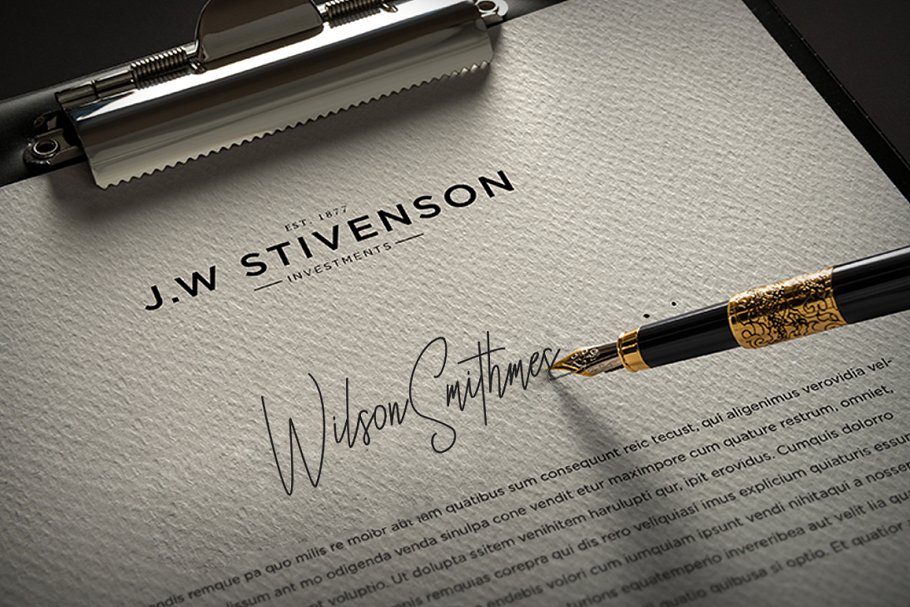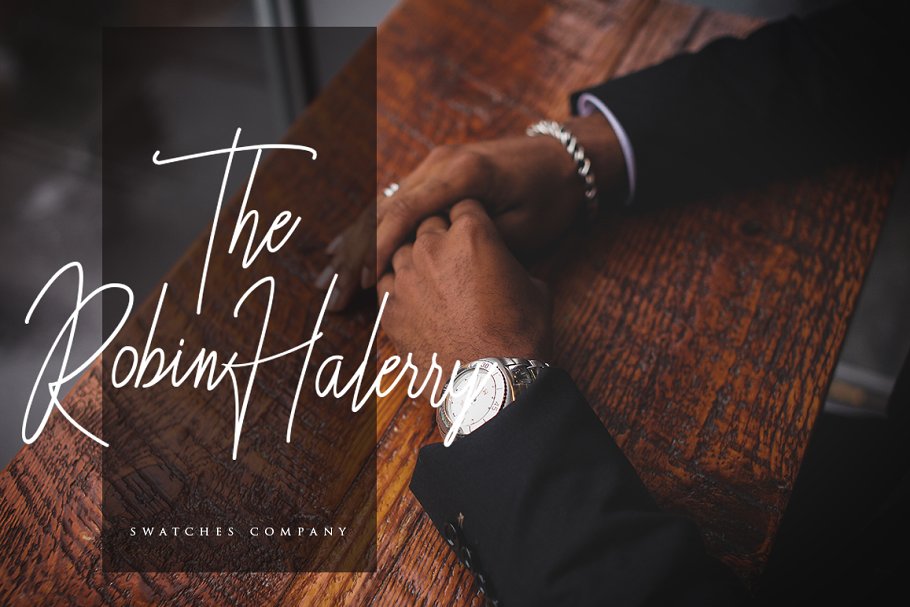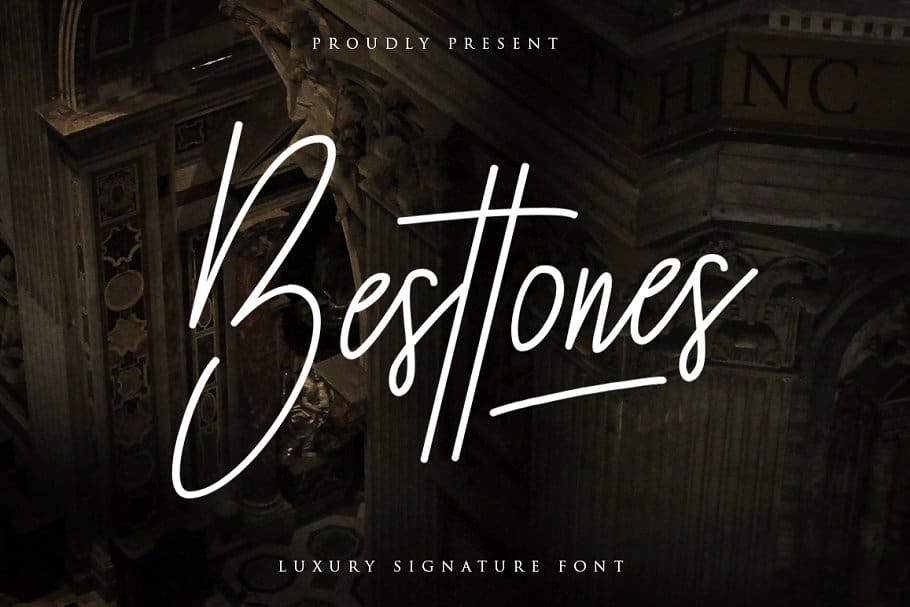
Besttones Signature Font
Besttones Signature Demo Font
This is a unique, cool and modern handwritten font. It’s hand look style makes it perfect for use in all your design projects. Introducing Besttones Font. It’s designed and shared by Indotitas. Besttones Signature Font. Inspired by signature and stylish handwriting, perfect for many different project such as logos & branding, invitation, stationery, wedding designs, social media posts, advertisements, product packaging, product designs, label, photography, watermark.